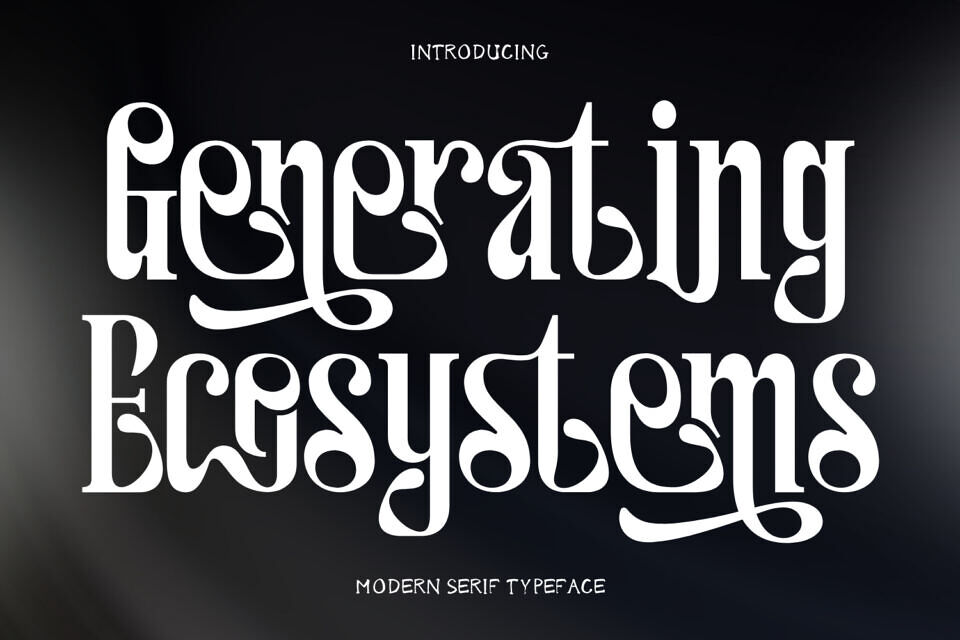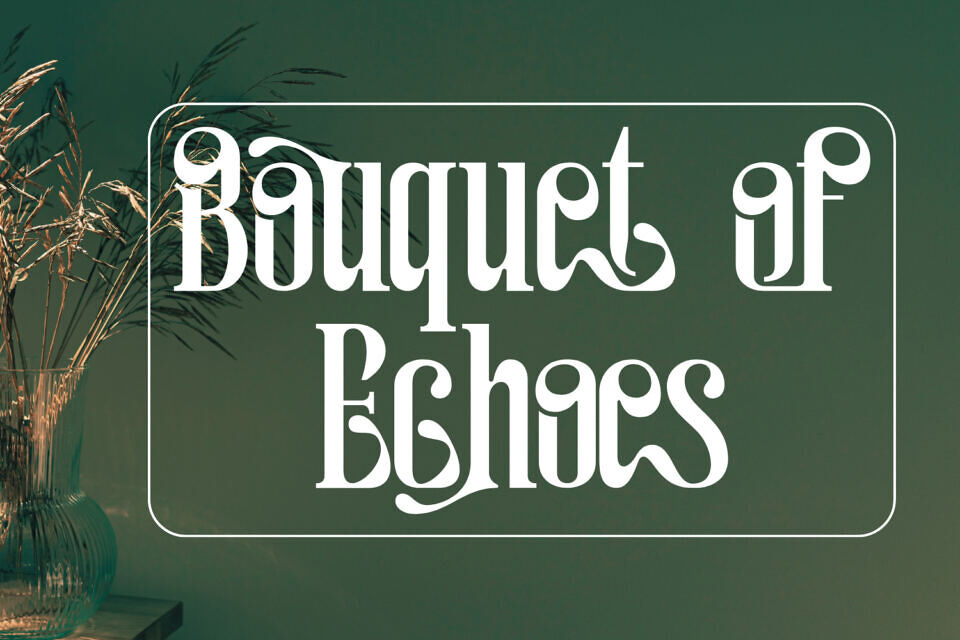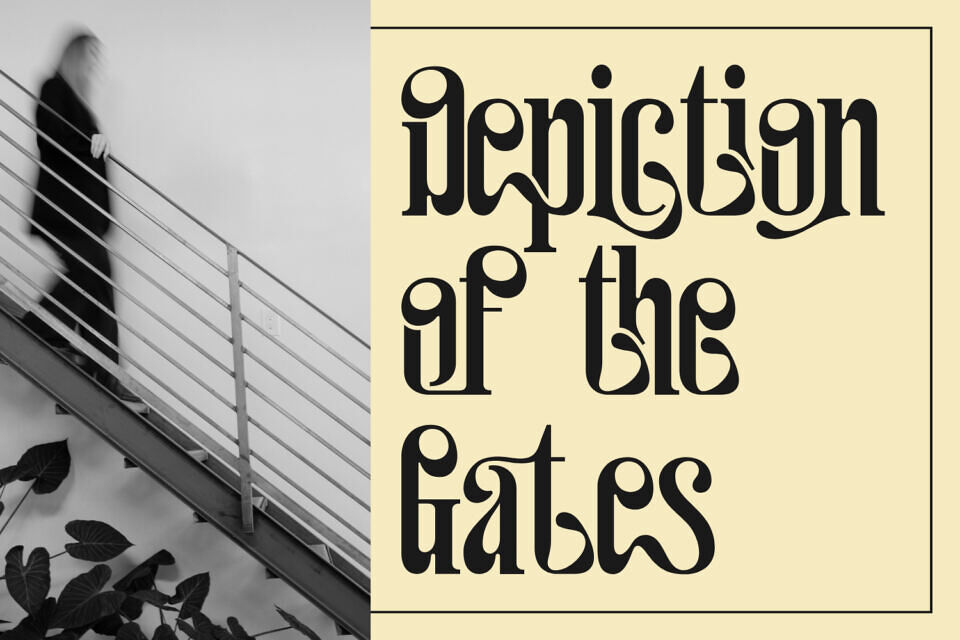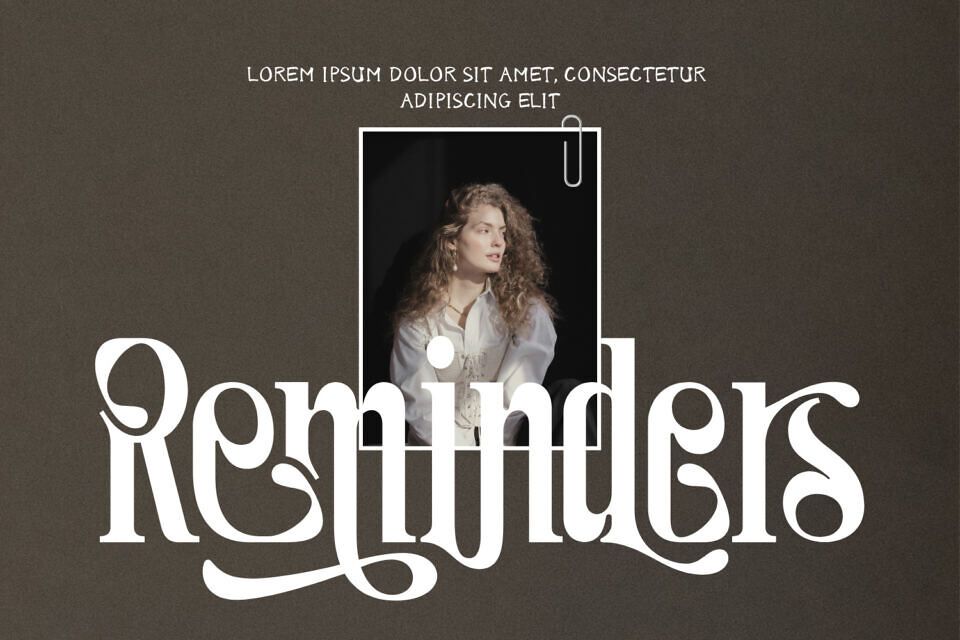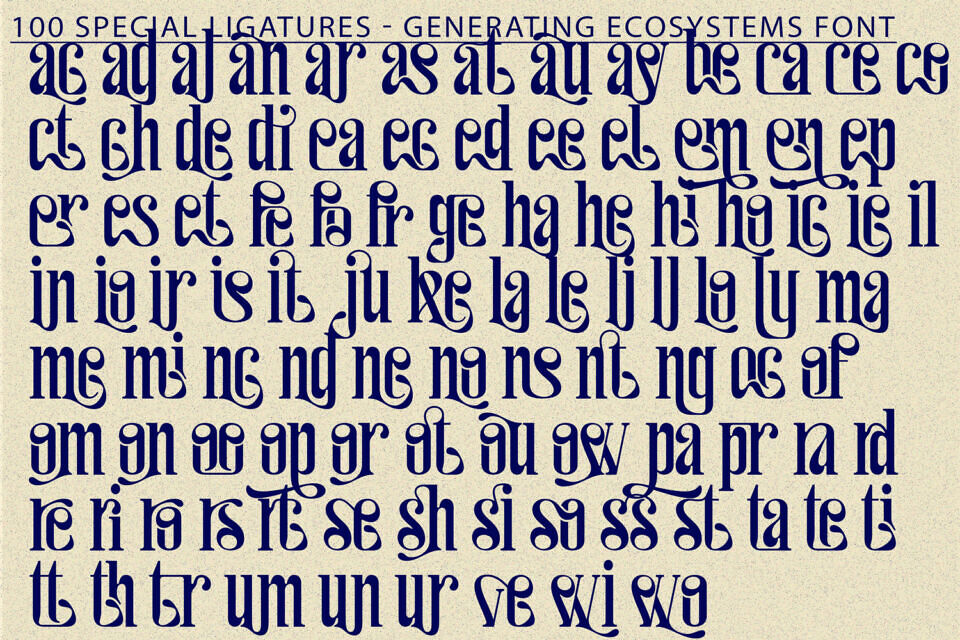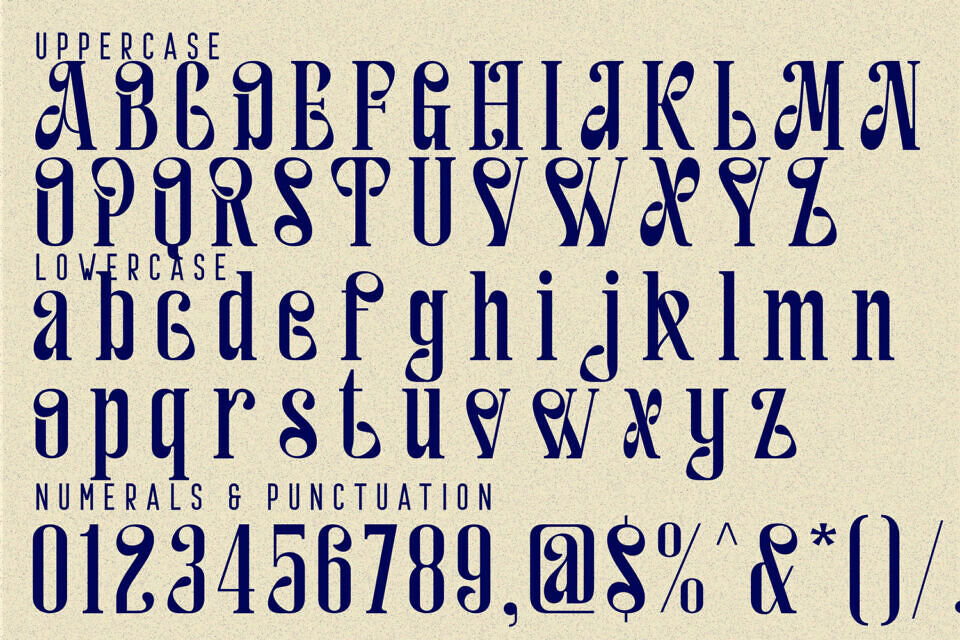
Generating Ecosystems is a modern calligraphic serif display typeface that blends elegant editorial structure with graceful script-inspired details. Featuring refined letterforms, smooth curves, and beautifully crafted ligatures, this font delivers a sophisticated and contemporary visual presence.
Its flowing swashes and balanced proportions make it perfect for boutique branding, wedding invitations, fashion editorials, beauty packaging, and modern lifestyle design projects. Generating Ecosystems is ideal for creatives seeking a serif typeface with a romantic touch and distinctive decorative elegance.